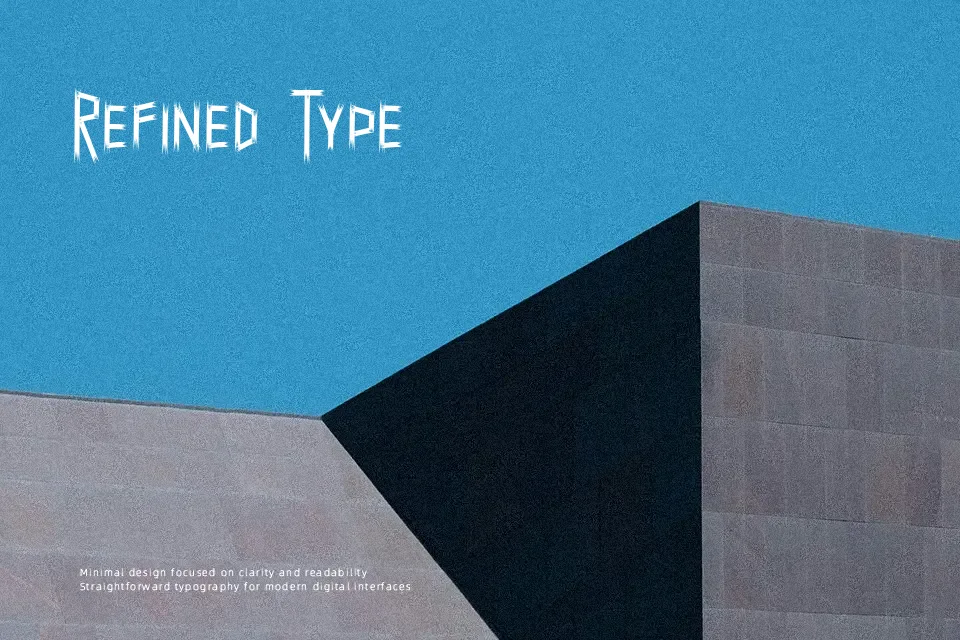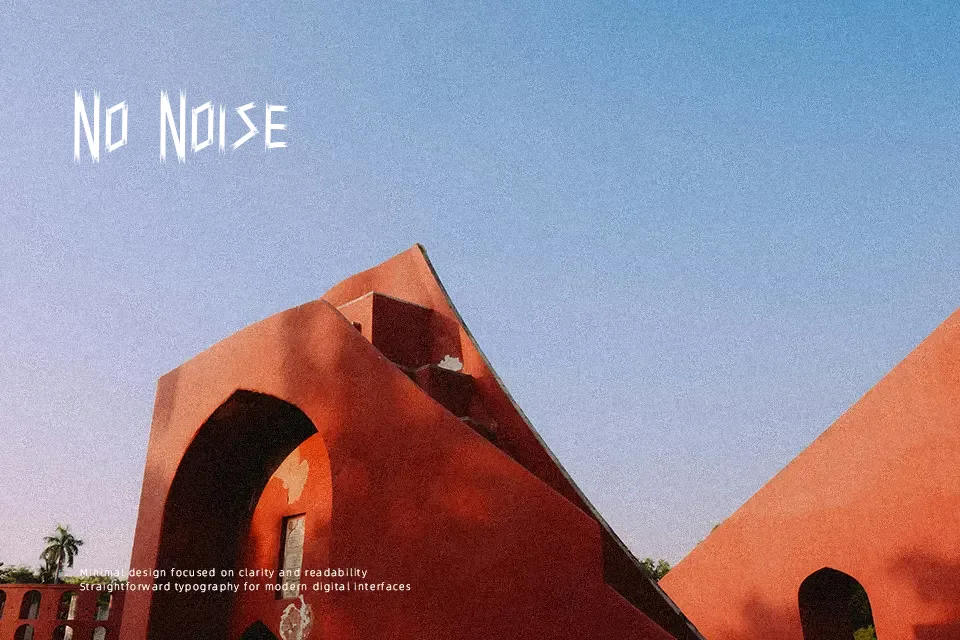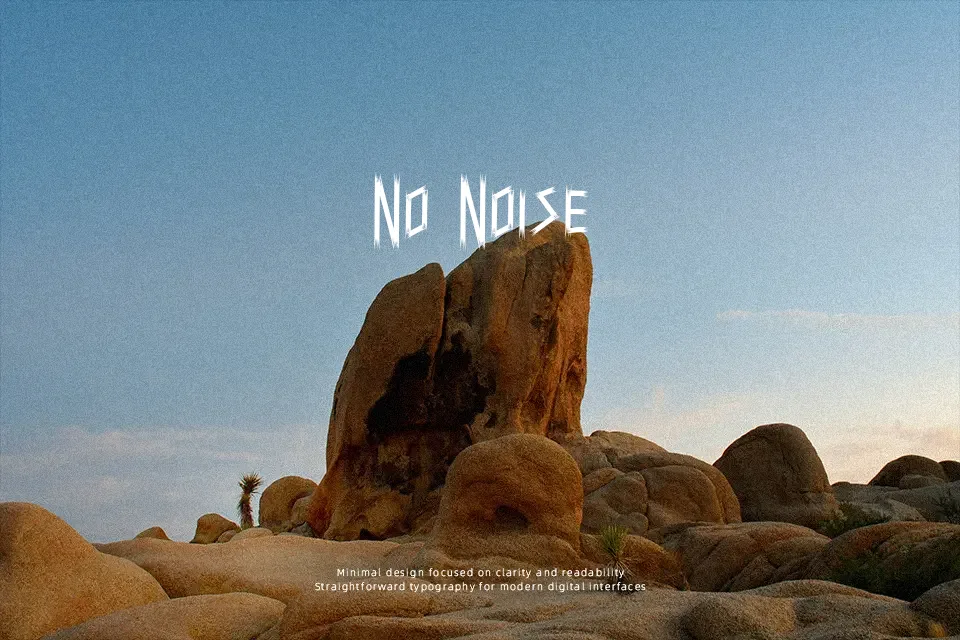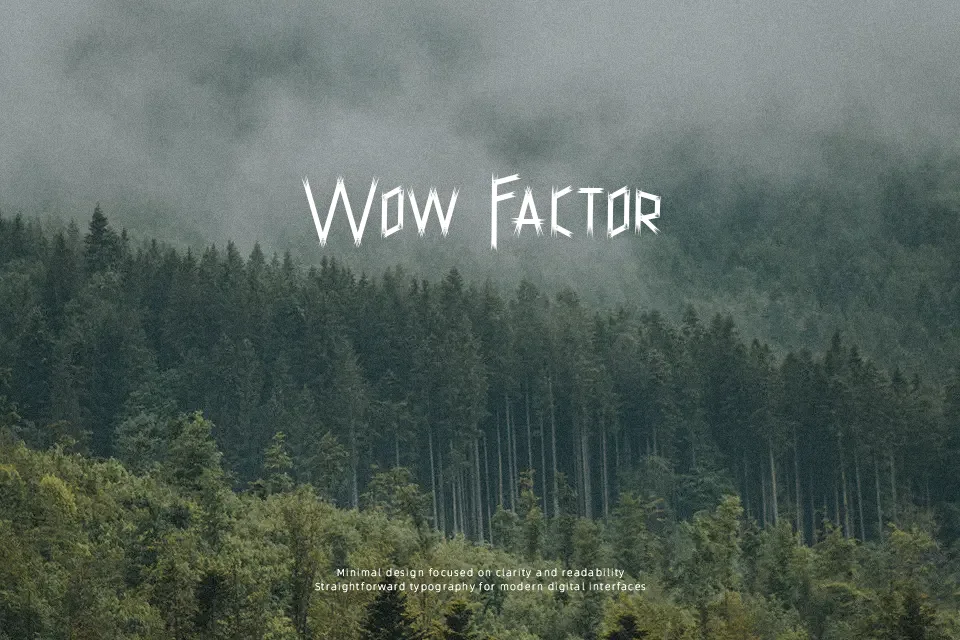
Undergod Font
Undergod Font commands attention with aggressive, irregular letterforms distinguished by sharp claw-like spikes, fractured contours, and distressed vertical strokes. Character widths remain compact while tight spacing accentuates the gritty, chaotic rhythm across uppercase displays. The pronounced stroke contrast and intricate spiky flourishes provide formidable visual impact at poster sizes, instantly establishing an unsettling mood. However, these complex decorative elements cause fine terminals to blur and cluster when scaled down, significantly reducing reading comfort in running paragraphs. Displaying the typeface at prominent headline sizes ensures that every menacing detail remains cleanly separated and legible.
Best For: horror movie titles, Halloween apparel graphics, heavy metal album covers, haunted house promotional banners
Not Ideal For: continuous body text, mobile interface labels, corporate documents, small product packaging labels